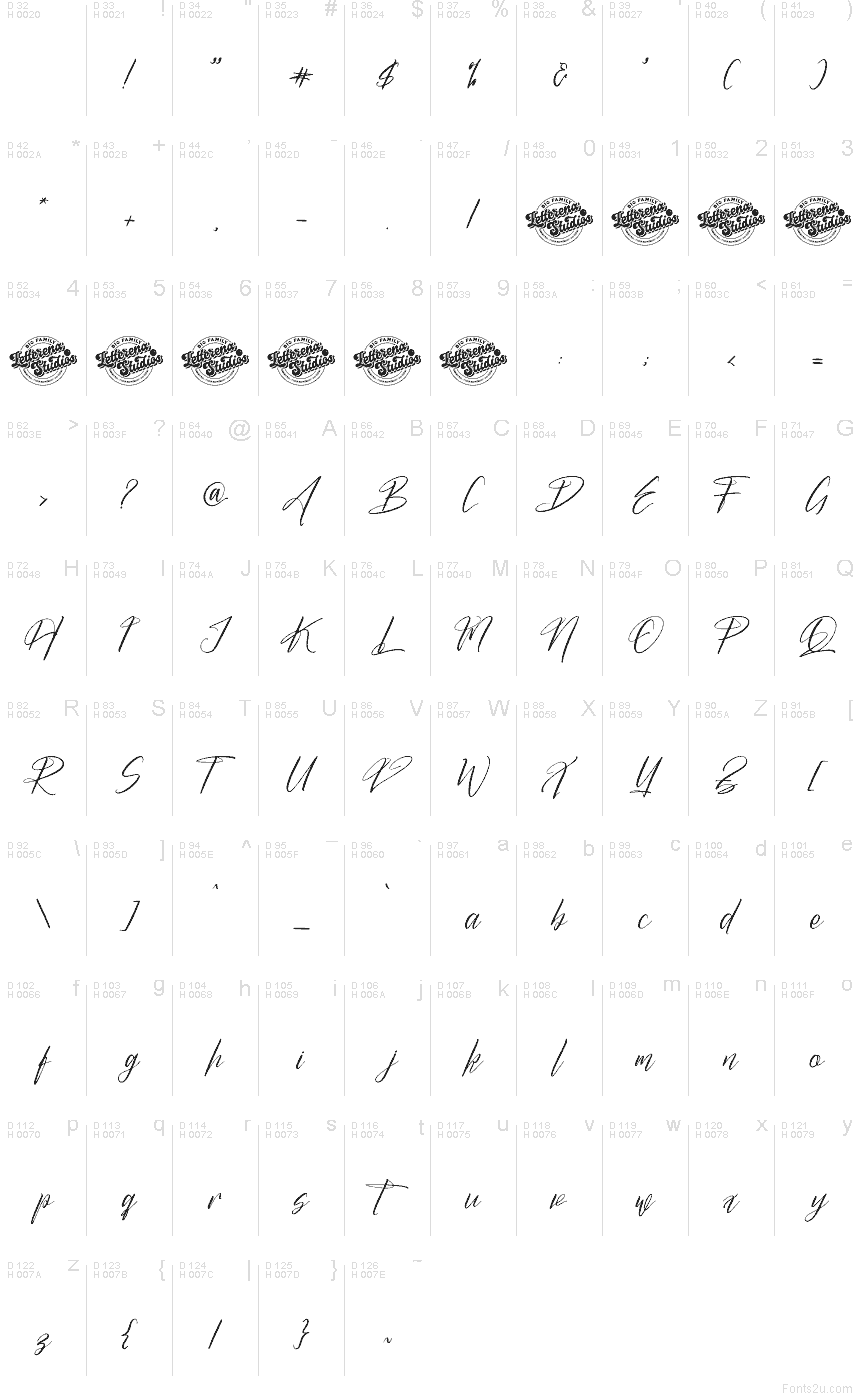
Butnekia font by Letterena Studios is a free handwritten script typeface with a flowing, ink-on-paper feel that looks like it was written in one confident breath. Long sweeping entrance and exit strokes glide across the line, while the slim, slightly textured strokes keep it airy and refined rather than heavy or fussy. The letters connect with an easy rhythm, giving logos, names, and short phrases a luxurious, signature-like presence.
Using Butnekia, this free font shines on wedding invitations, save-the-dates, beauty and fashion branding, packaging, social media quotes, and elegant product labels. Its graceful swashes add just enough drama to headlines without overwhelming the design, especially when you give it generous letterspacing and plenty of white space. Pair this handwritten script with a clean sans serif for body text to keep layouts modern, readable, and beautifully balanced.